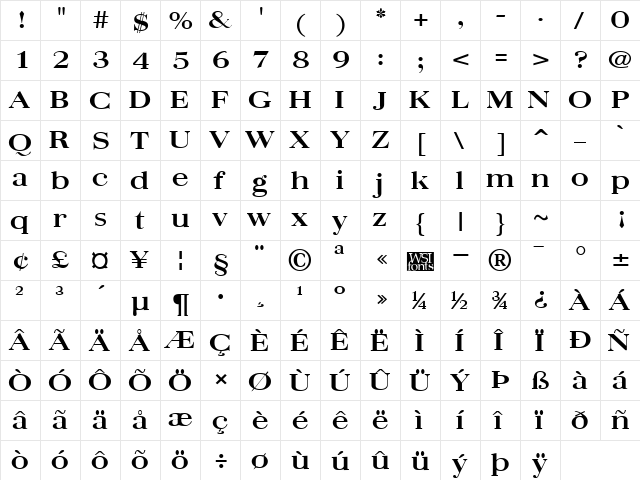
QuantasBroad Bold
Design Context for QuantasBroad Typeface
QuantasBroad takes a measured approach to typography — its balanced proportions and neutral character make it a reliable workhorse for both digital and print work. The heavy weight commands attention and anchors typographic hierarchies.